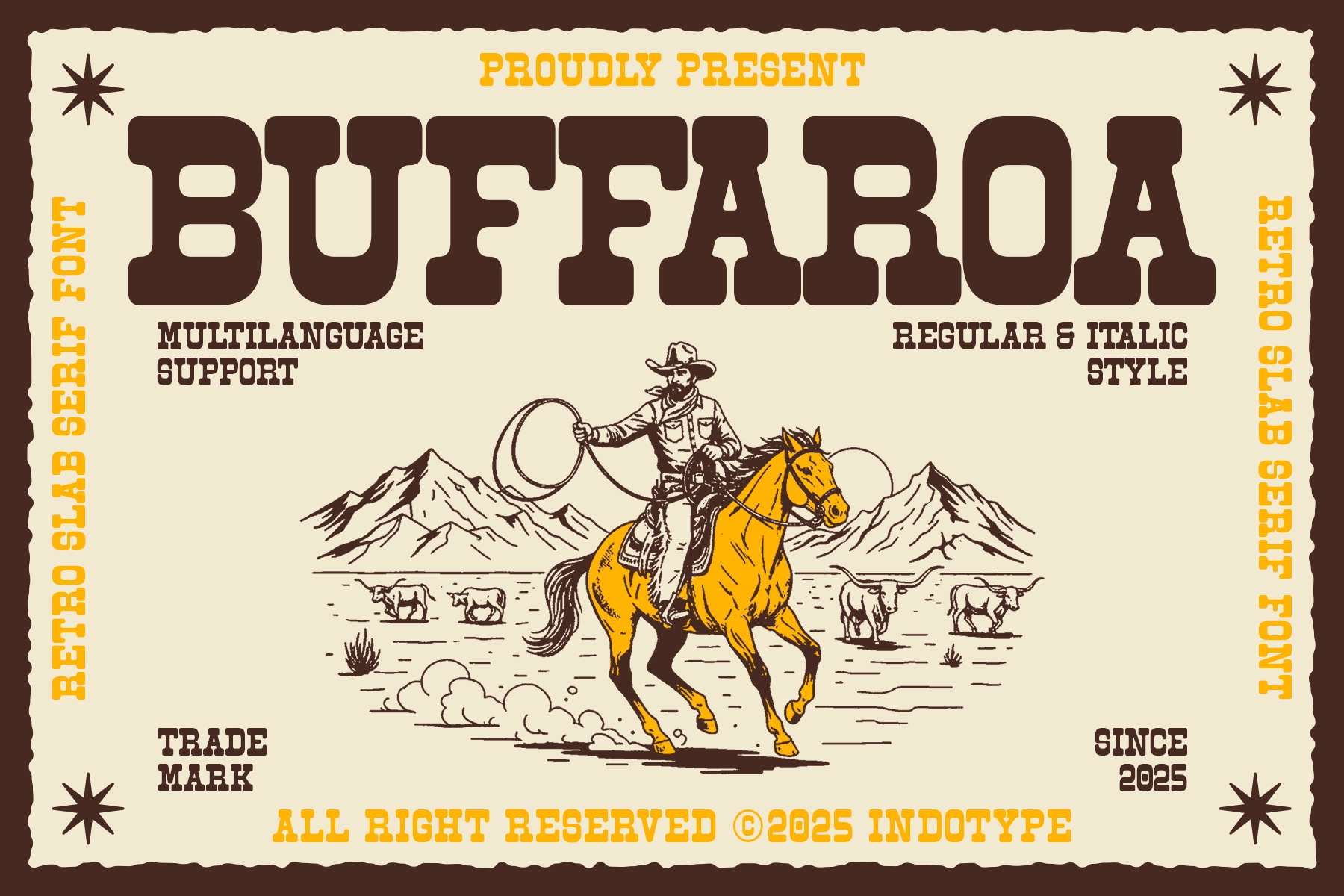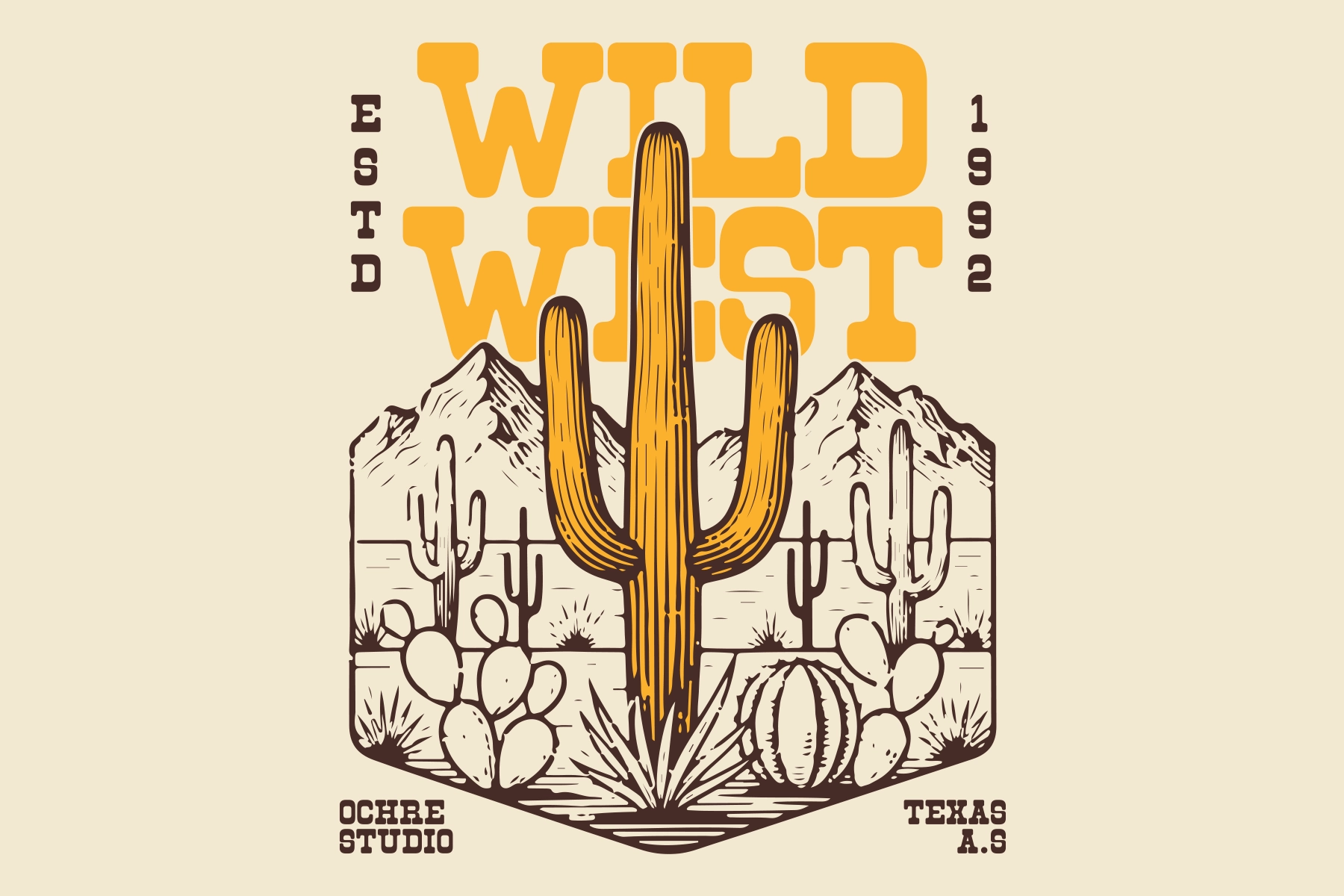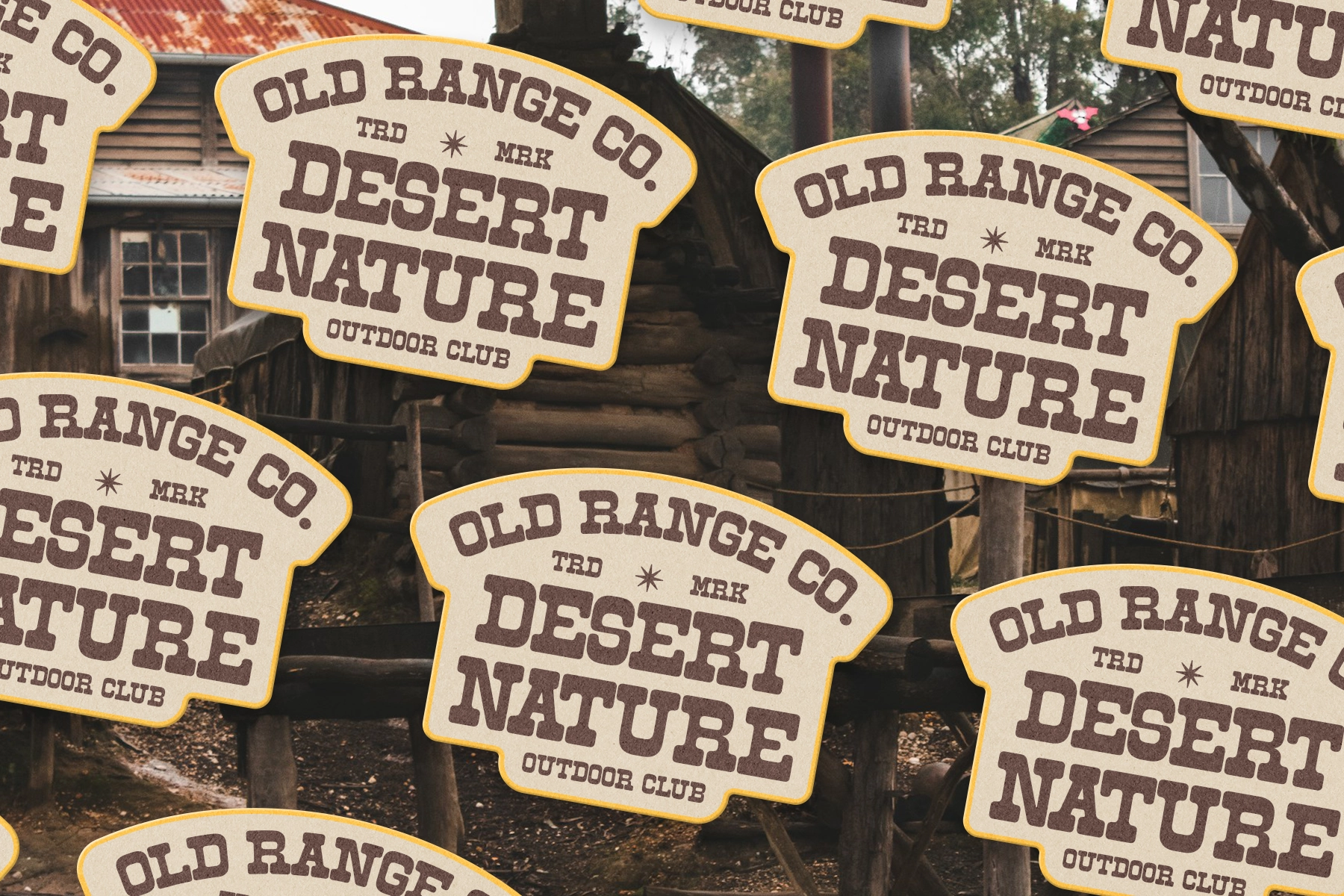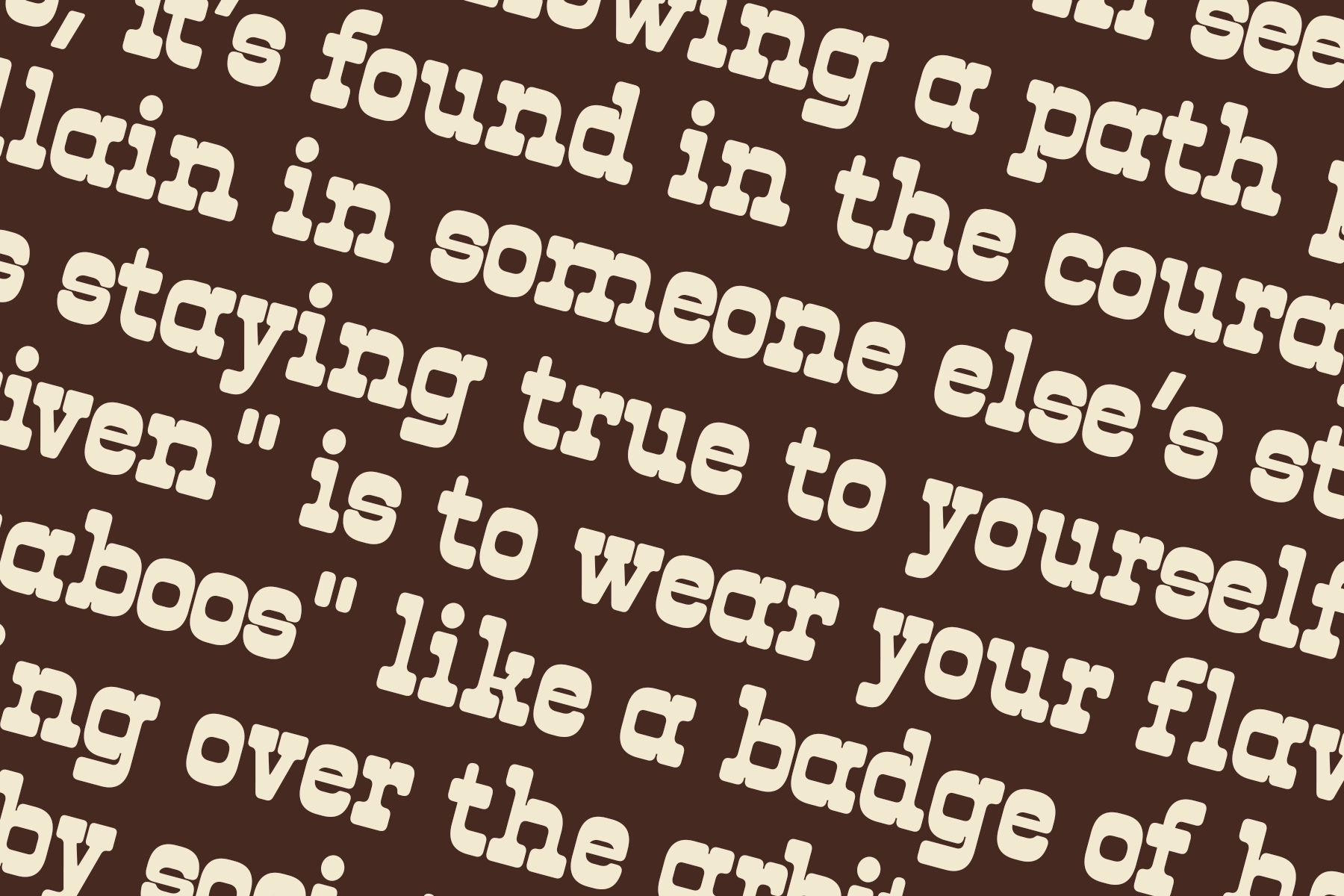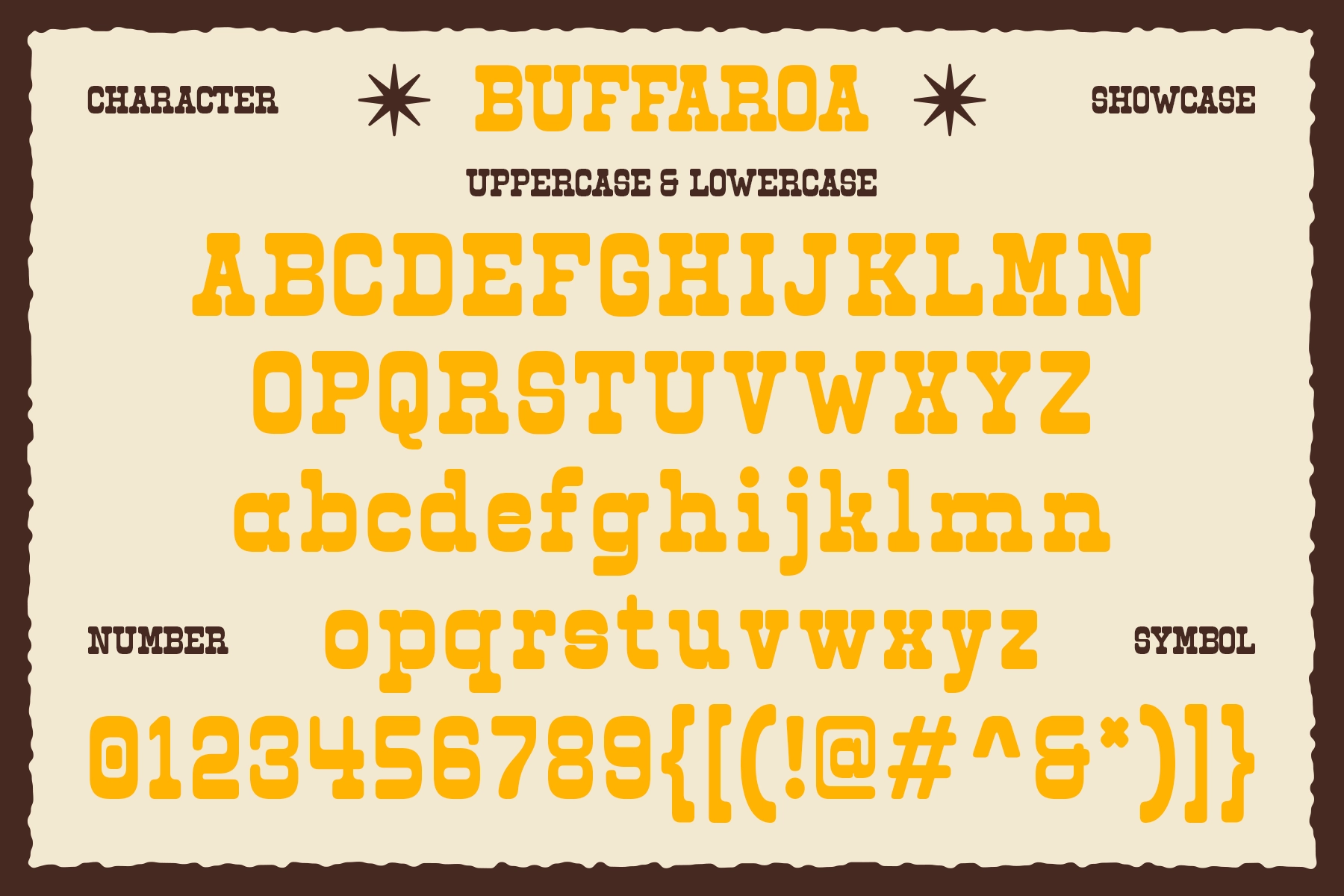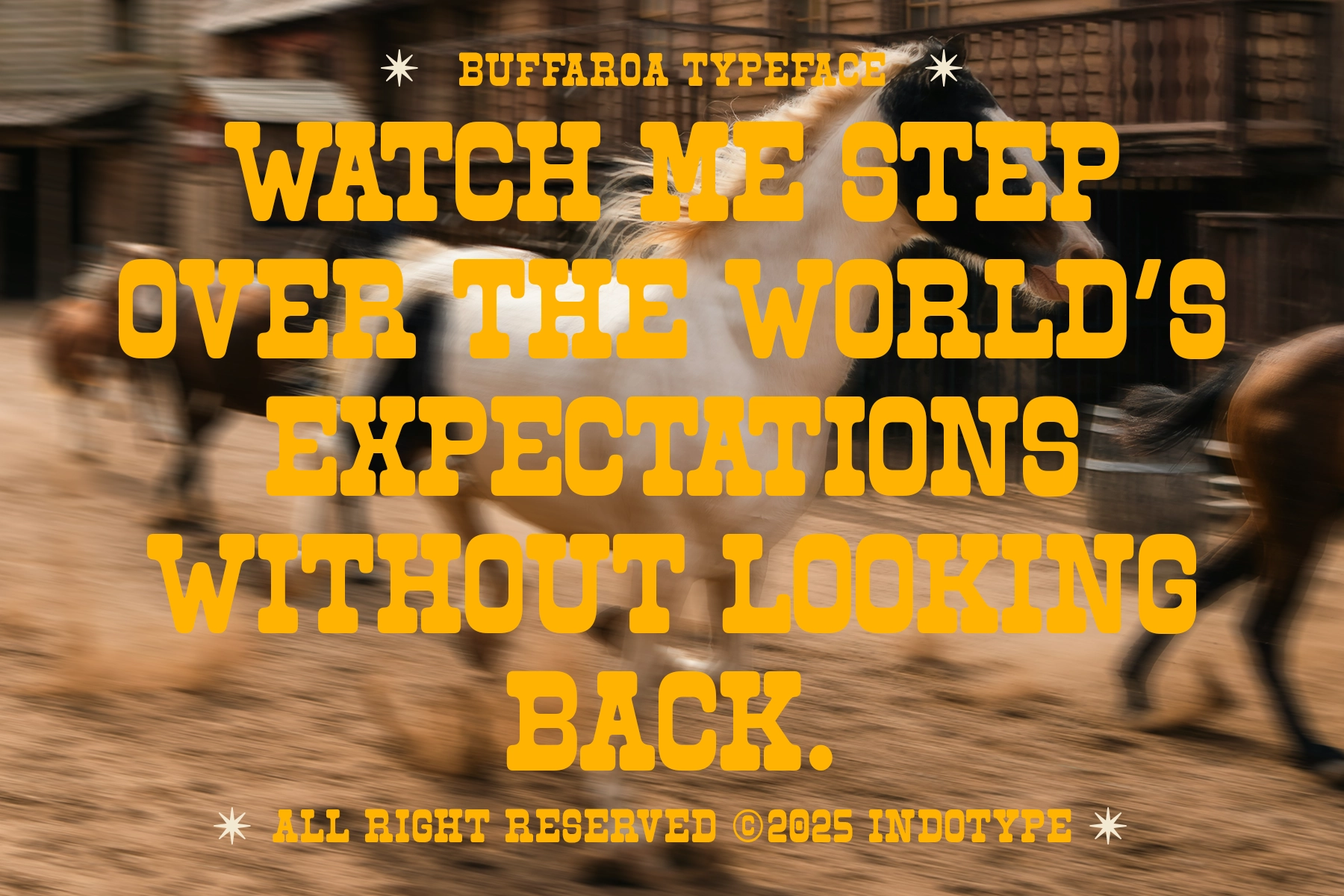
Buffaroa - Slab Serif Typeface
Buffaroa is a western slab serif font with block-shaped serifs, sturdy strokes, and a heavy vintage weight, echoing old cattle-brand signage and hand-painted saloon lettering. The construction holds up at both display sizes and mid-size settings, reading like a retro rodeo poster instead of a plain workhorse slab.
Buffaroa comes in Regular and Italic styles, giving badge-style branding room to shift between an upright stance and a slanted alternate. Use it for craft brewery branding, artisan product packaging, western-themed logos, editorial headlines, retro badge design, and outdoor apparel graphics.
- 2 styles: Regular, Italic;
- uppercase & lowercase;
- numerals, punctuation & symbols;